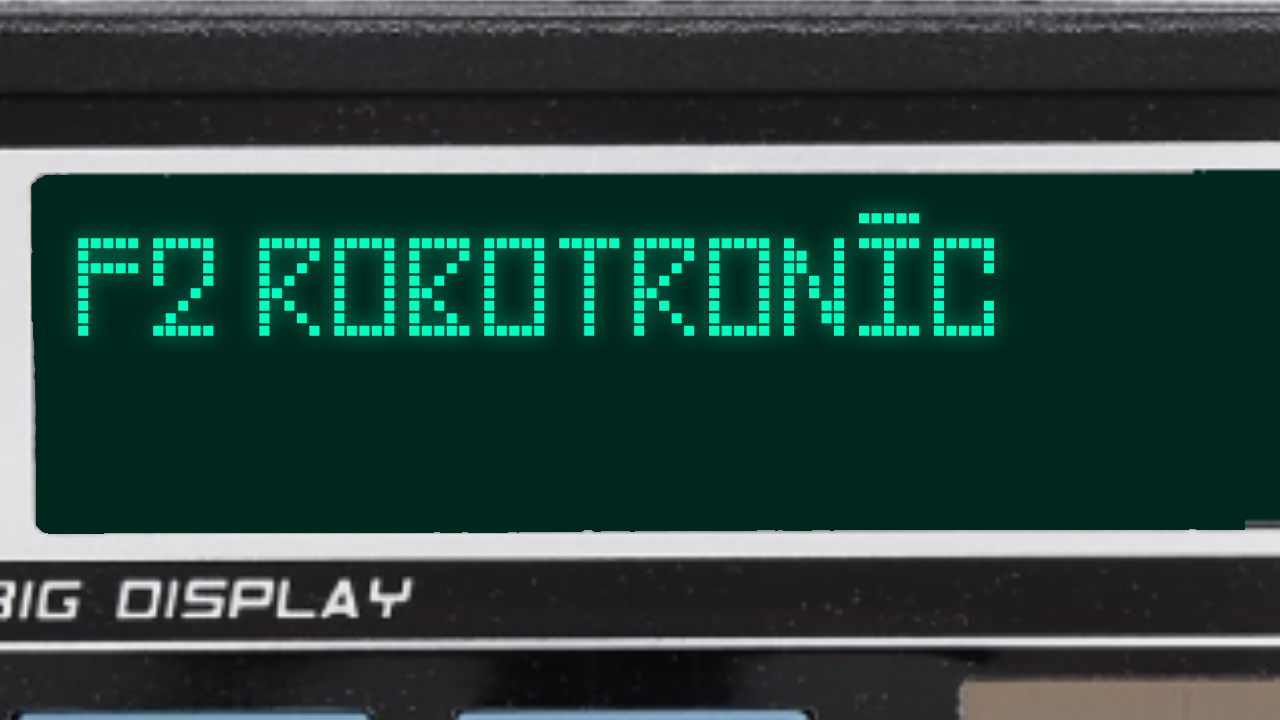
• VFDs. Chances are, you've probably seen one: microwave timers, car dashboards, stereos, maybe even your alarm clock from 1997 that you planned on selling. Well, this font is sort of the next evolution of this. Angular letterforms, pixelized edges, and a slightly hostile demeanor.
If it runs on batteries, you ought to use Robotronic!
@azertyuiopqsdfgh can you remove the bar from uppercase annd lowercase I so that it doesn't look like Ī (macron (elongate vowel) + I)
no